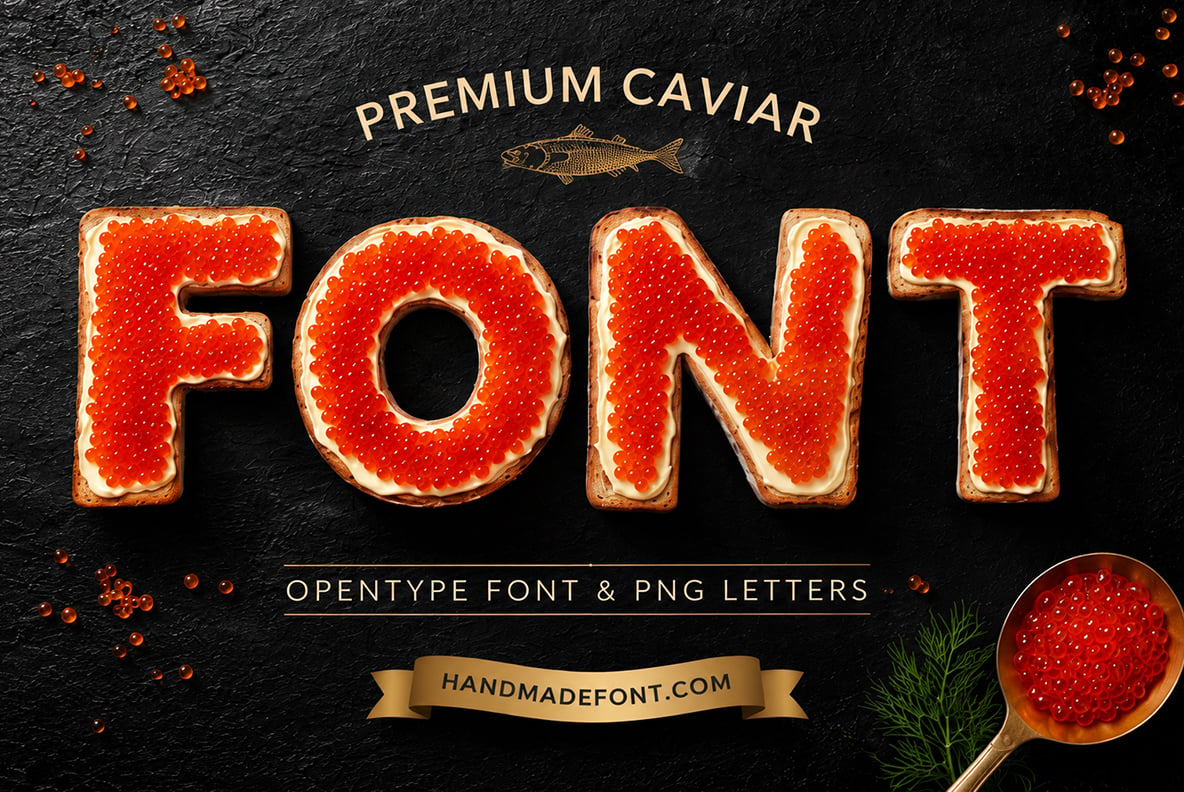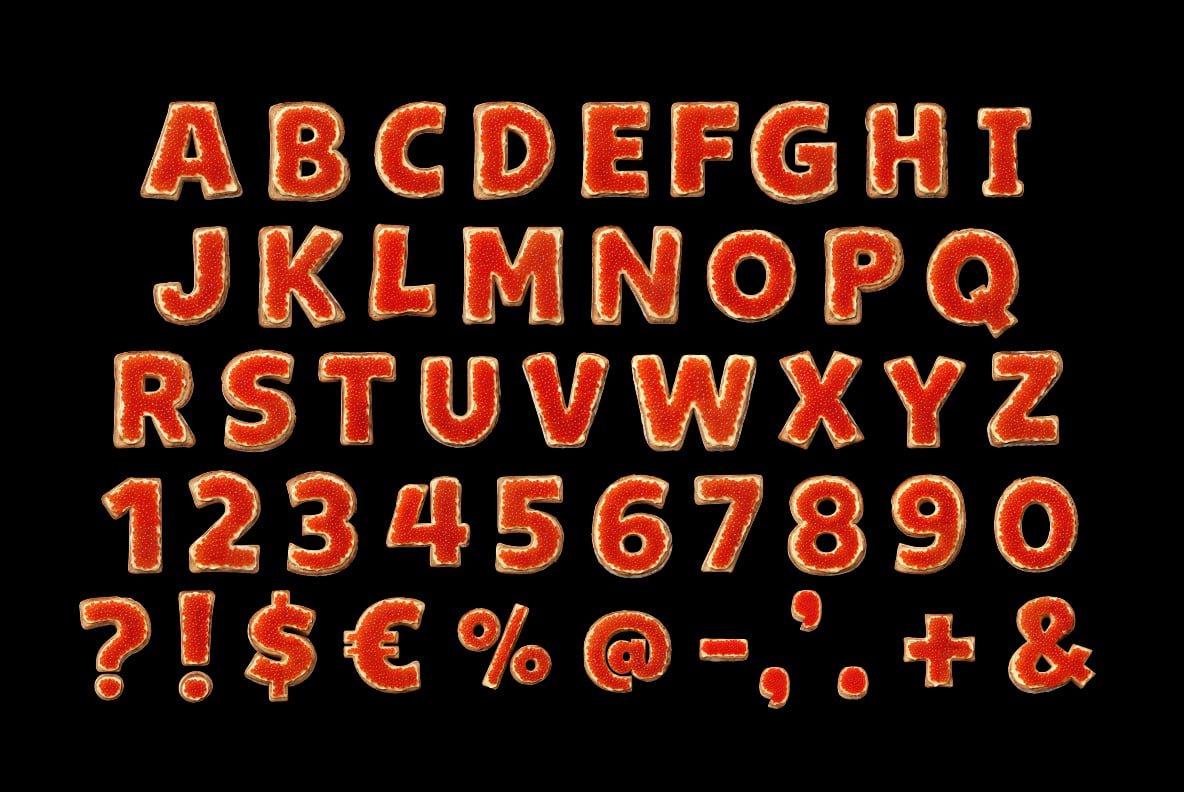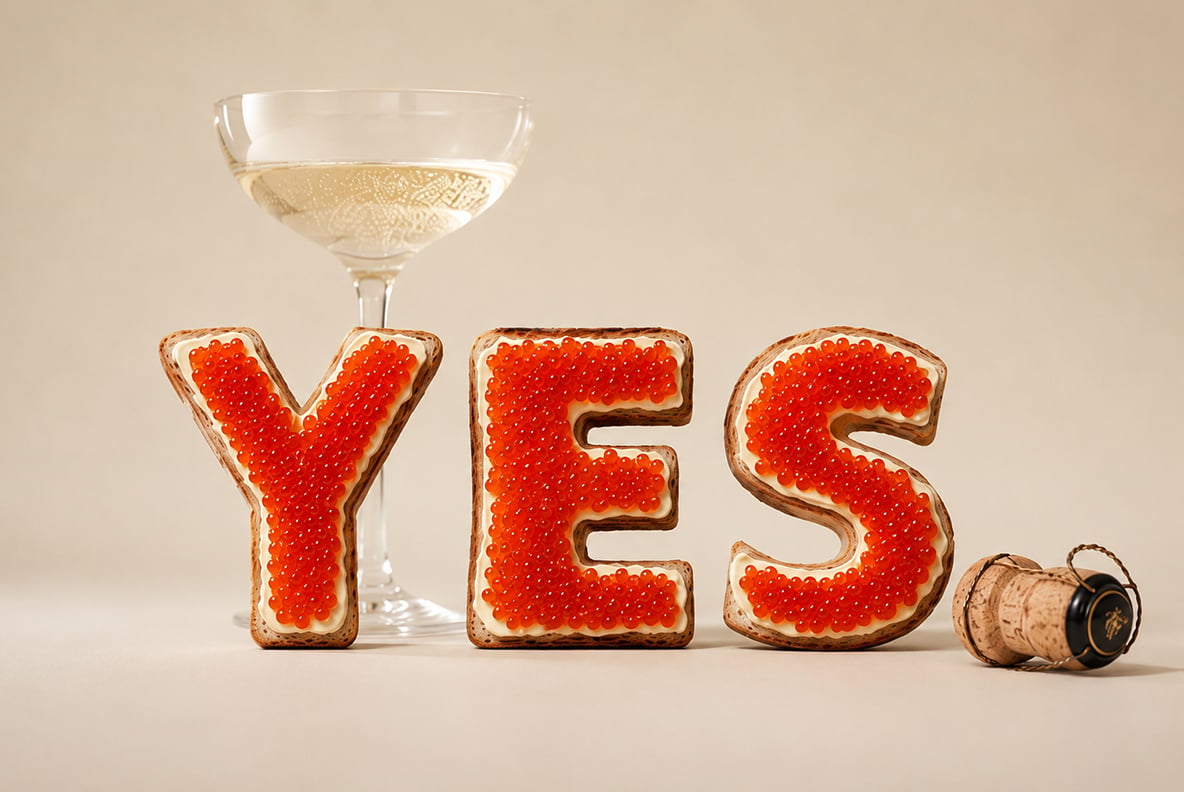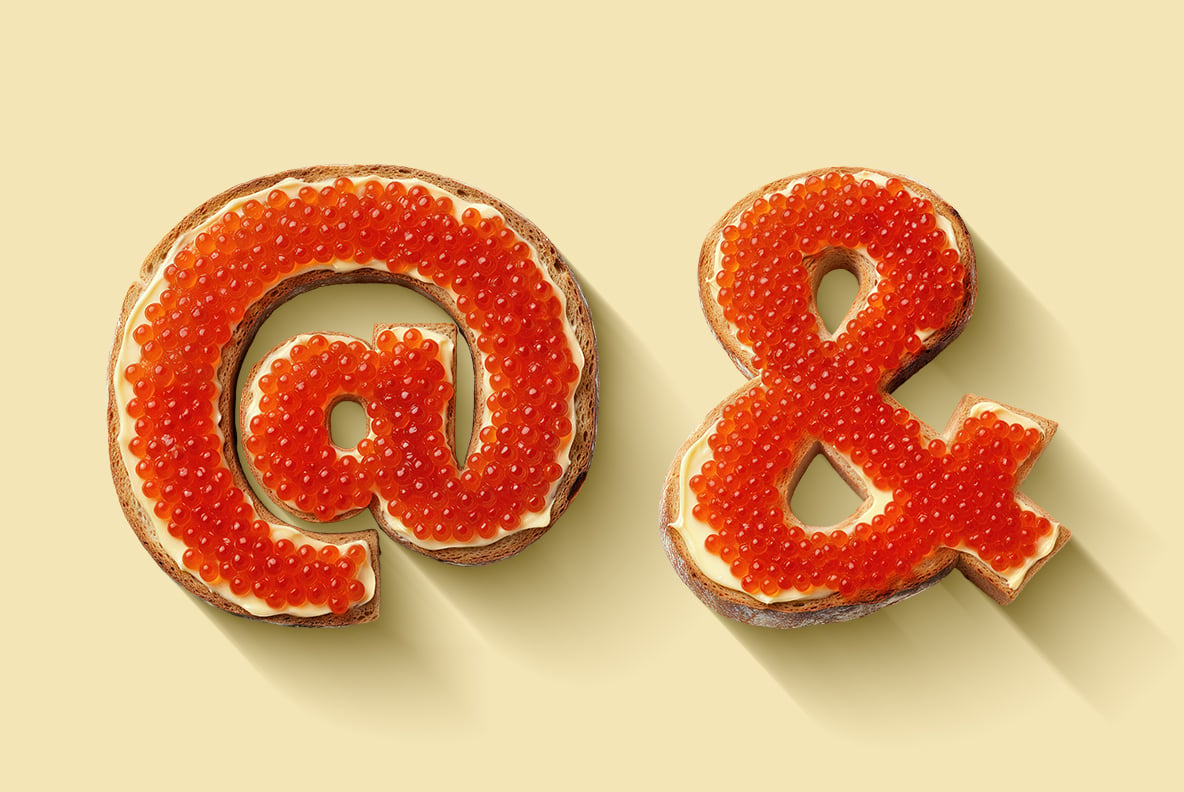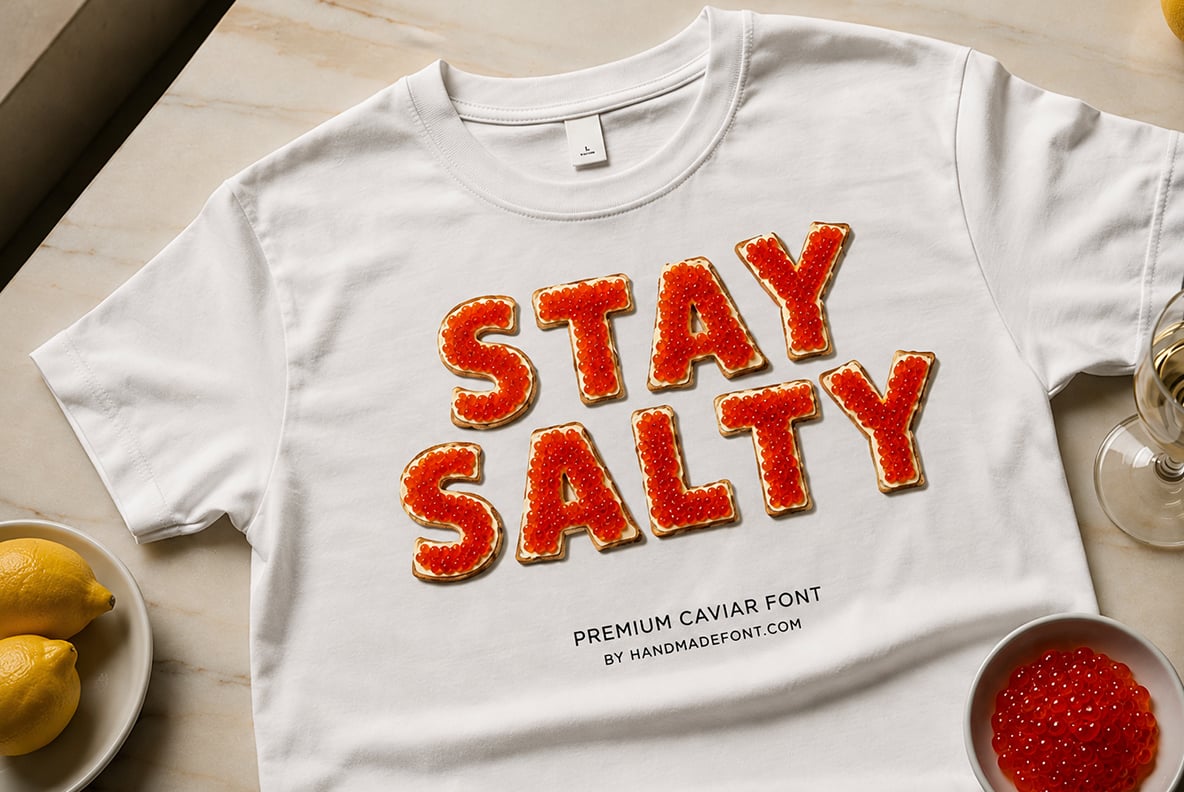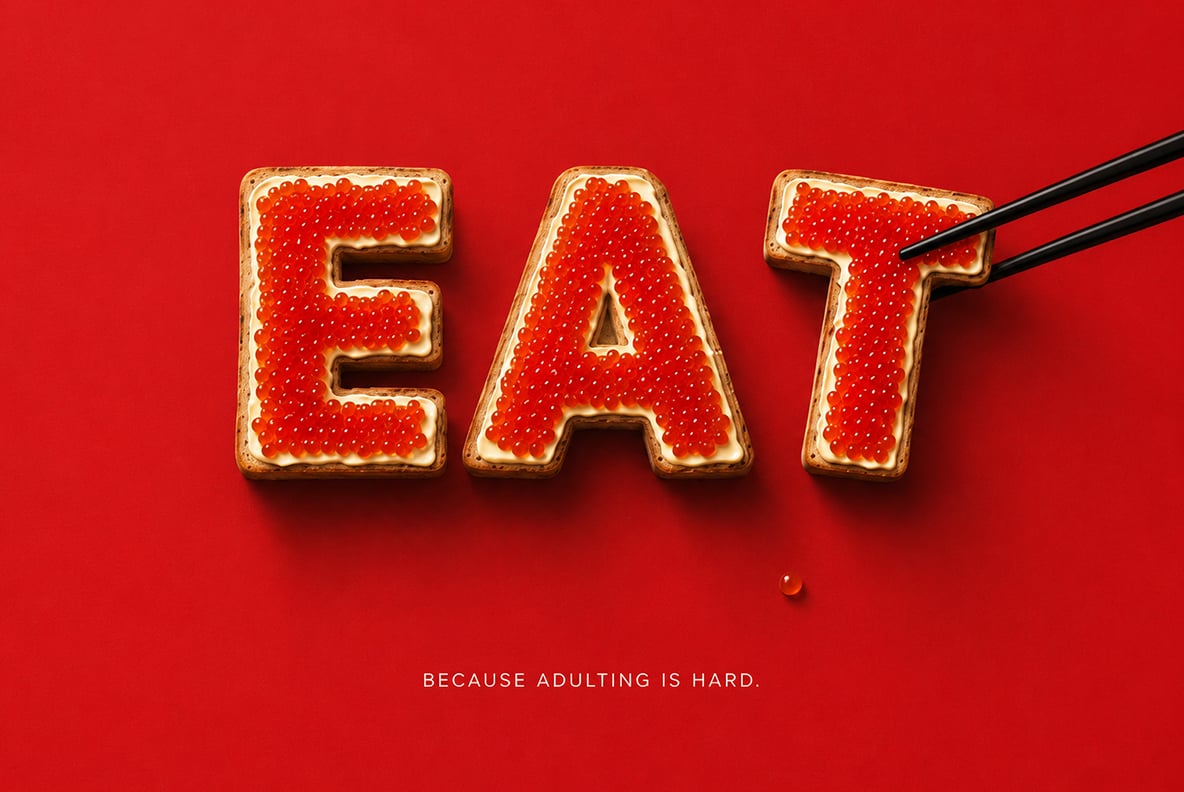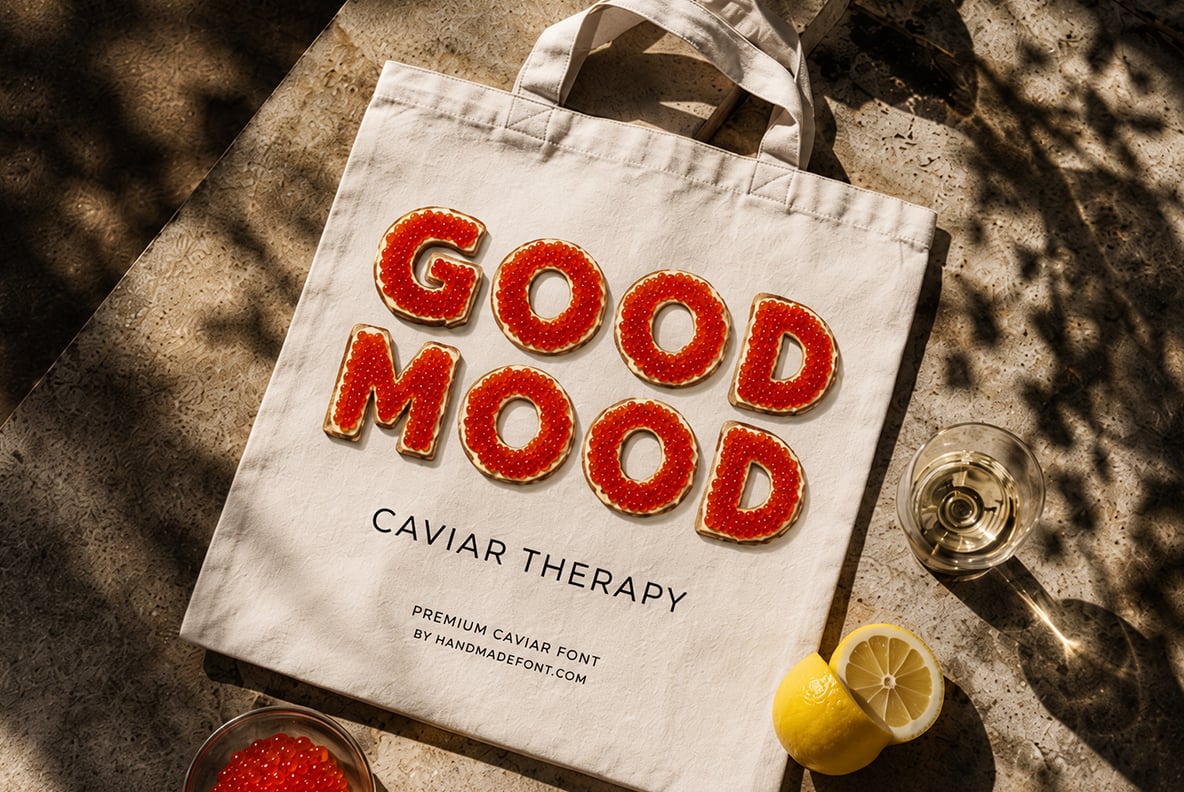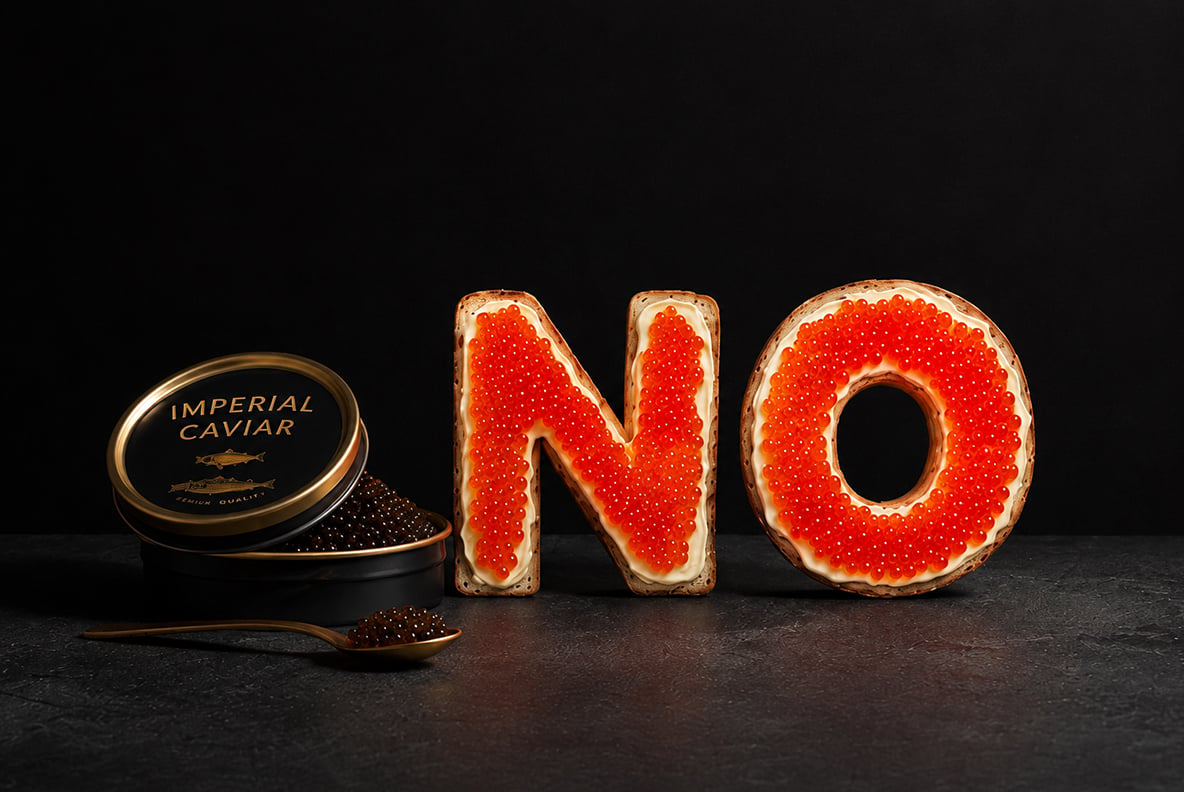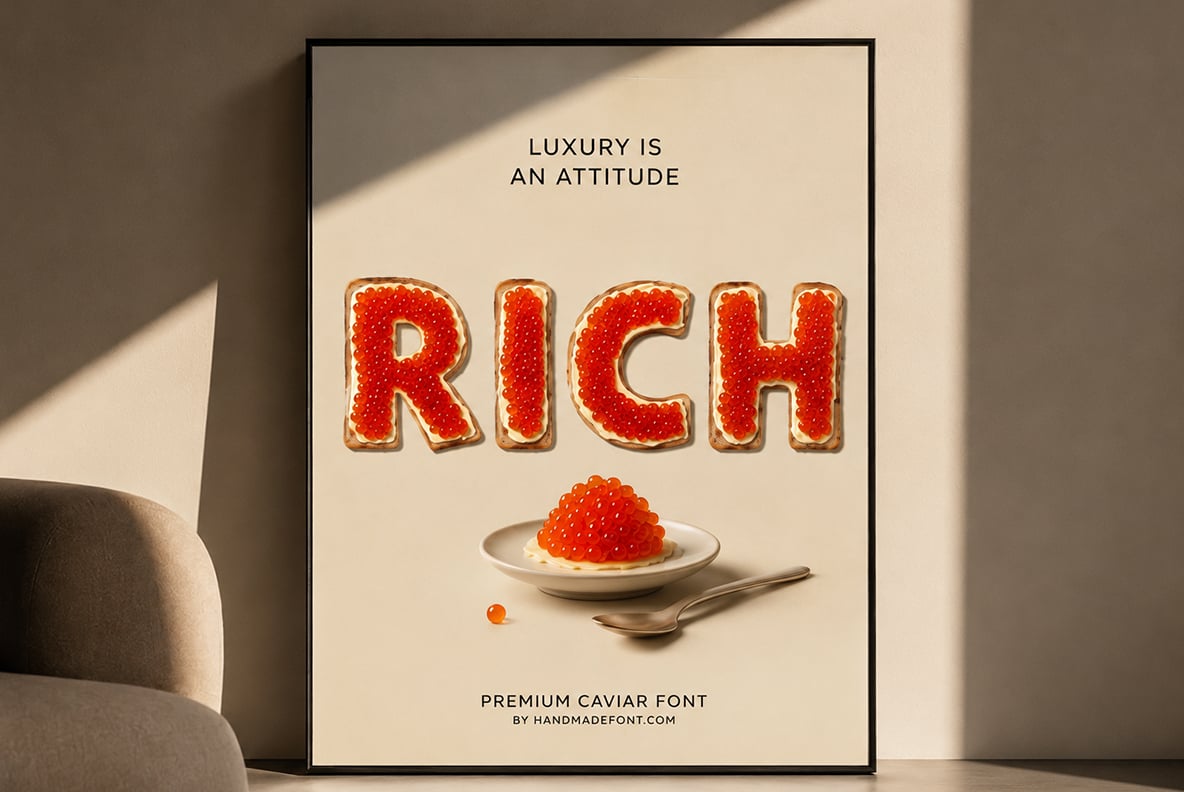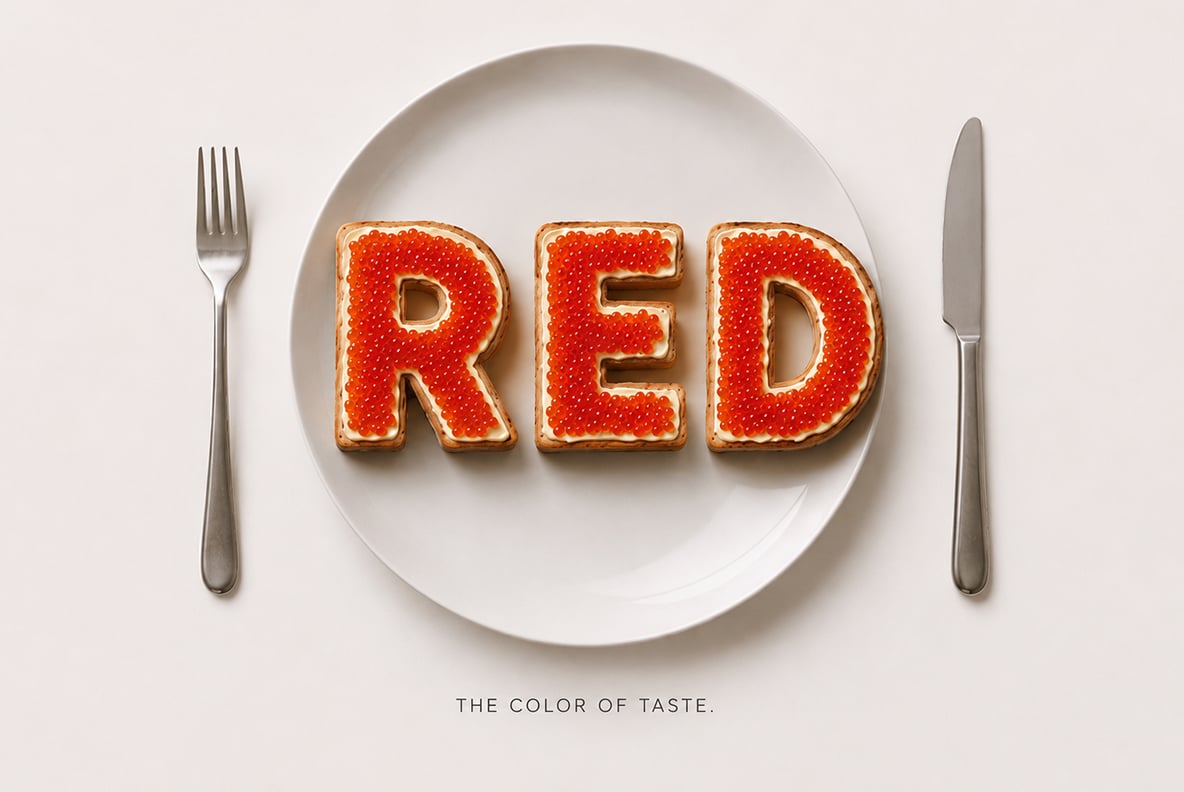
Premium Caviar Font
Premium Caviar Font brings gourmet elegance and playful creativity into every design. Inspired by luxurious caviar served on crisp toast, each character is carefully handcrafted with realistic textures and rich details. Perfect for restaurant branding, gourmet packaging, food menus, posters, social media, invitations, and premium advertising, this typeface instantly attracts attention. The package includes a fully functional OpenType (OTF) font for effortless typing, plus every letter provided separately as high-resolution PNG files with transparent backgrounds for maximum creative flexibility. Premium Caviar Font combines delicious realism, refined style, and outstanding versatility, making every project look memorable, sophisticated, unique, and irresistibly appetizing.